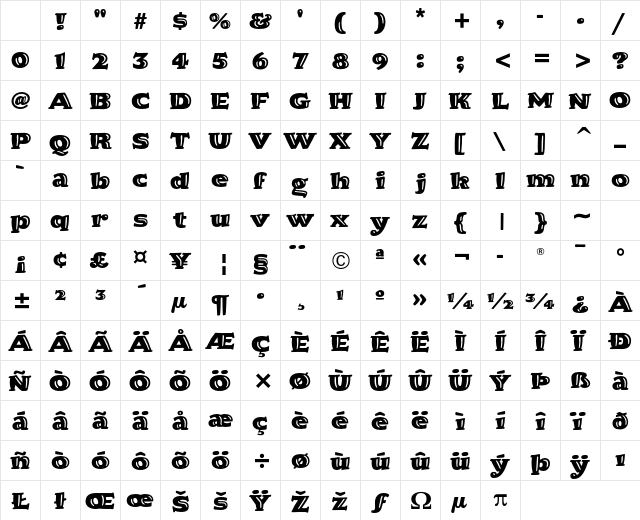
Hornpype ITC Std Regular
Designer: Mott Jordan
Design Context for Hornpype ITC Std
Hornpype ITC Std is a composed and adaptable typeface that performs quietly and consistently across a wide range of design contexts.